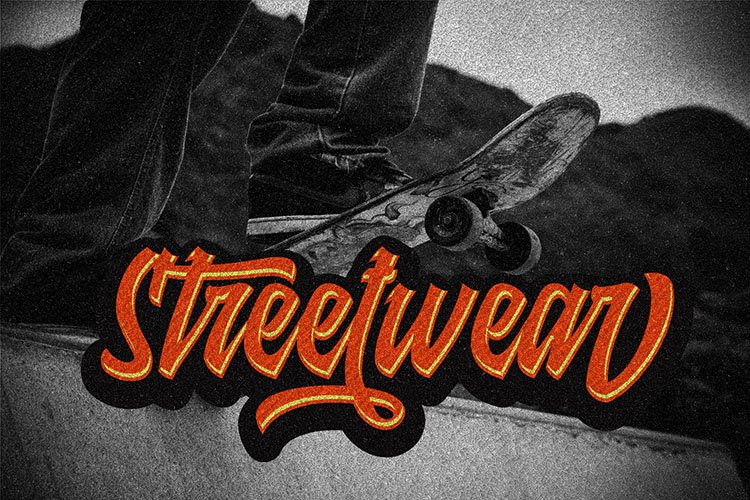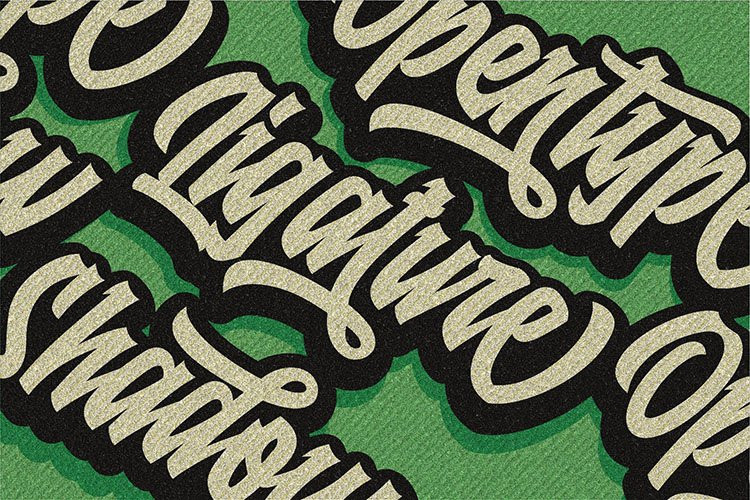
Raydric Font
Raydric FontRaydric Inspired by contemporary fashion and streetwear and combination with Hand Lettering style. I hope this can inspire you from your work. and a very bouncy baseline It has a perfectly paired complimentary marker font. Ideal for logos, handwritten quotes, product packaging, headers, posters, merchandise, social media & greeting cards.Files Include: